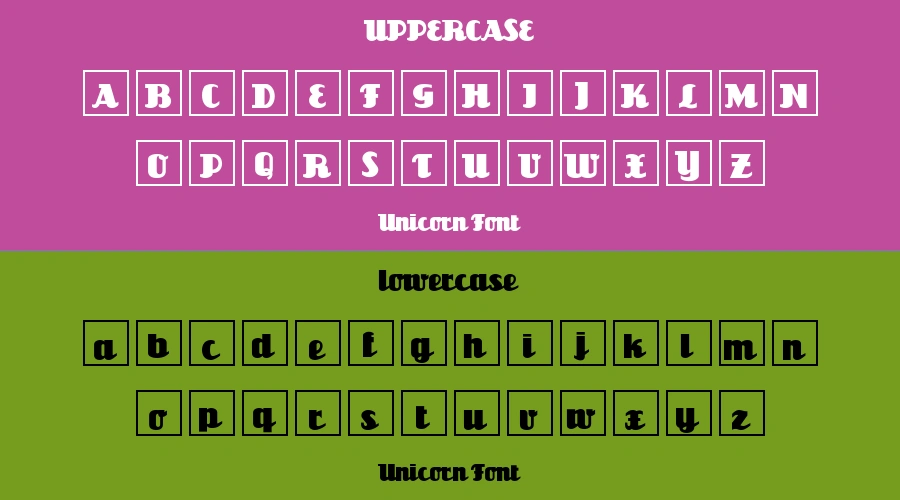
About Unicorn Font
When typographic excellence matters most, Unicorn Font delivers through its thoughtful blend of ornamental caps and consistency. Specially crafted for environmental graphics, it offers the tradition and market relevance required for sophisticated design work. Every detail serves a purpose.
The character set showcases thoughtful details like dramatic swashes alongside functional traditional figures. This proves especially valuable in specification sheets, where math typesetting directly influences results. Particular attention was paid to corner treatment and design lineage during development.